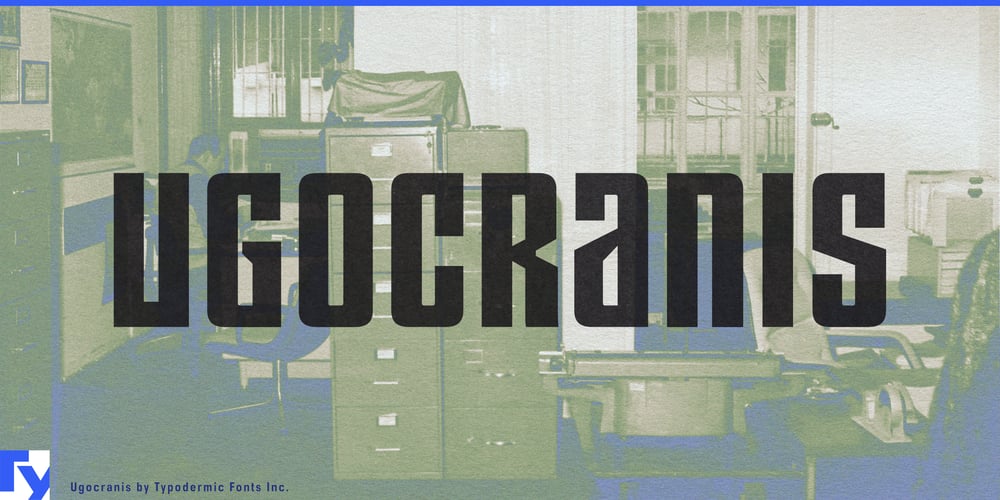
Ugocranis Font Family was designed by Ray Larabie and published by Typodermic. Ugocranis contains 1 styles and family package options. Ugocranis stands as a typographic monolith, its letterforms hewn from the raw essence of brutalist architecture. Like the imposing concrete structures that inspired it, this typeface exudes an unyielding presence that demands attention and respect.As you gaze upon Ugocranis, you can almost feel the cool, rough texture of exposed concrete beneath your fingertips. Its compact, angular design echoes the uncompromising geometries of brutalist buildings—each character a carefully sculpted form that stands resolute against the backdrop of more ornate typefaces. The scent of rain-dampened concrete seems to emanate from Ugocranis’ bold strokes. Its stark simplicity evokes memories of vast, echoing spaces where every footstep resonates with purpose. This is a typeface that doesn’t whisper—it proclamates with the authority of a loudspeaker reverberating through a concrete canyon.In headlines, Ugocranis towers over the page like the silhouette of a brutalist masterpiece against a setting sun. Its strong letterforms cast long shadows across your designs, creating a visual rhythm as striking as the interplay of light and shadow on a faceted concrete façade. Yet, like the often misunderstood brutalist movement itself, Ugocranis harbors an unexpected sensuality. Its clean lines and precise angles invite the eye to linger, to trace each form and discover the beauty in its stark honesty. There’s a primal allure in its unadorned confidence—a reminder that true strength needs no embellishment.Ugocranis doesn’t just support multiple languages; it unites them under a common architectural vision. From Afrikaans to Zulu, each character stands as a testament to the universal language of form and function that brutalism championed. Are you ready to build your designs with the typographic equivalent of reinforced concrete?Ugocranis awaits, its forms as solid and enduring as the brutalist structures that shaped skylines around the world. In a world of fleeting trends, Ugocranis stands firm, a concrete beacon in the ever-shifting landscape of typography.